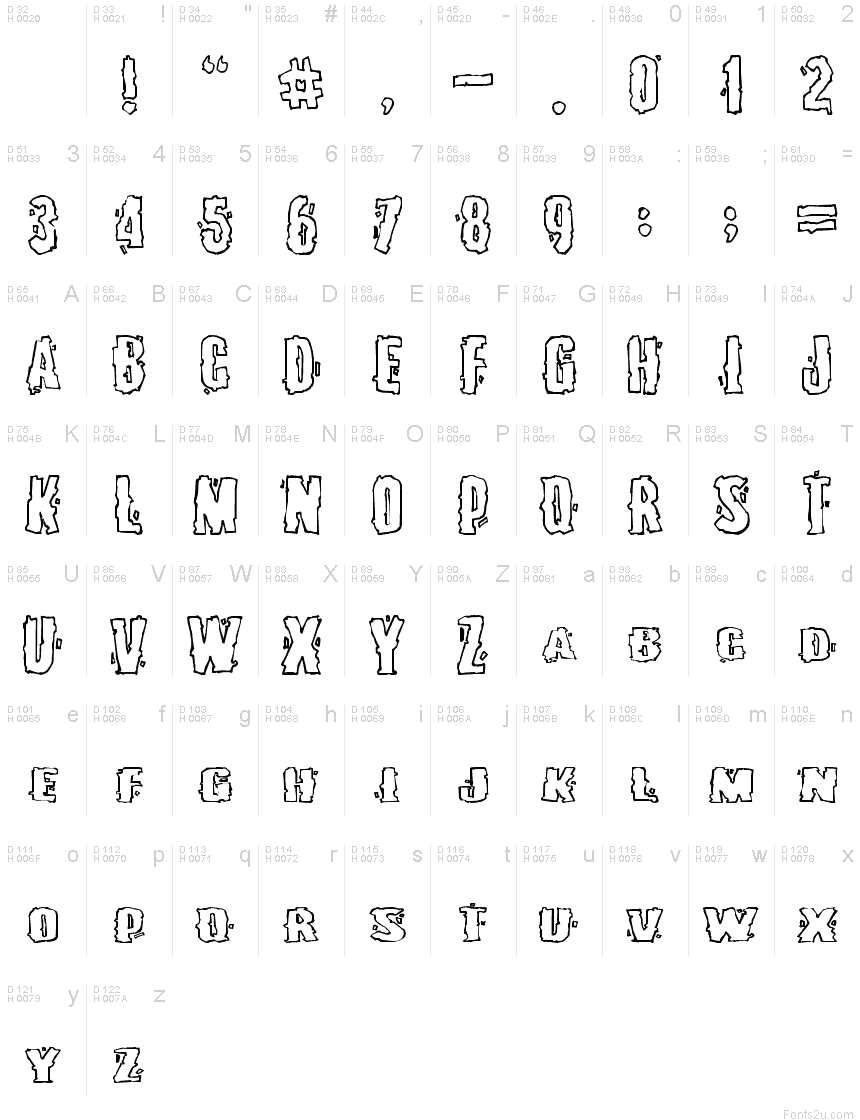
Burlesque
Burlesque font by Jakob Fischer is a free eroded, distorted display font with a roughed-up outline that feels like a circus poster pulled off a wall and re-inked by hand. The chunky letterforms stay readable, but the chipped edges and wobbly contours add instant grit and mischief. It’s bold without being polished, like paint stamped through a worn stencil.
Using Burlesque, you’ll get strong impact on event flyers, band merch, spooky party invites, retro nightlife posters, game title screens, craft beer labels, and social ads that need attitude fast. Keep it large so the texture can breathe, and pair this free font with a clean grotesk sans for dates, locations, or small-print details.